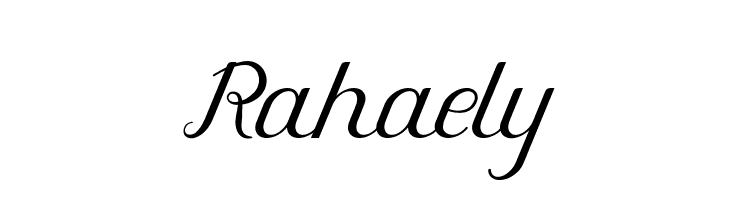
A graceful and flowing script font with elegant, connected strokes.
A playful, bold font with thick, rounded characters and a whimsical style.
A bold, playful font with rounded, bubble-like characters.
A bold, italicized font with high contrast and tight spacing, ideal for dynamic and impactful text.
A bold, italicized outline font with a futuristic and dynamic style.
A bold, geometric font with a futuristic and segmented design.
A modern, italic sans-serif font with sleek, elongated characters and consistent stroke thickness.
A playful and whimsical font with eye-like details and smooth, flowing lines.
A playful and casual handwritten font with fluid, organic strokes.
A bold, distressed, and playful font with a hand-painted look.